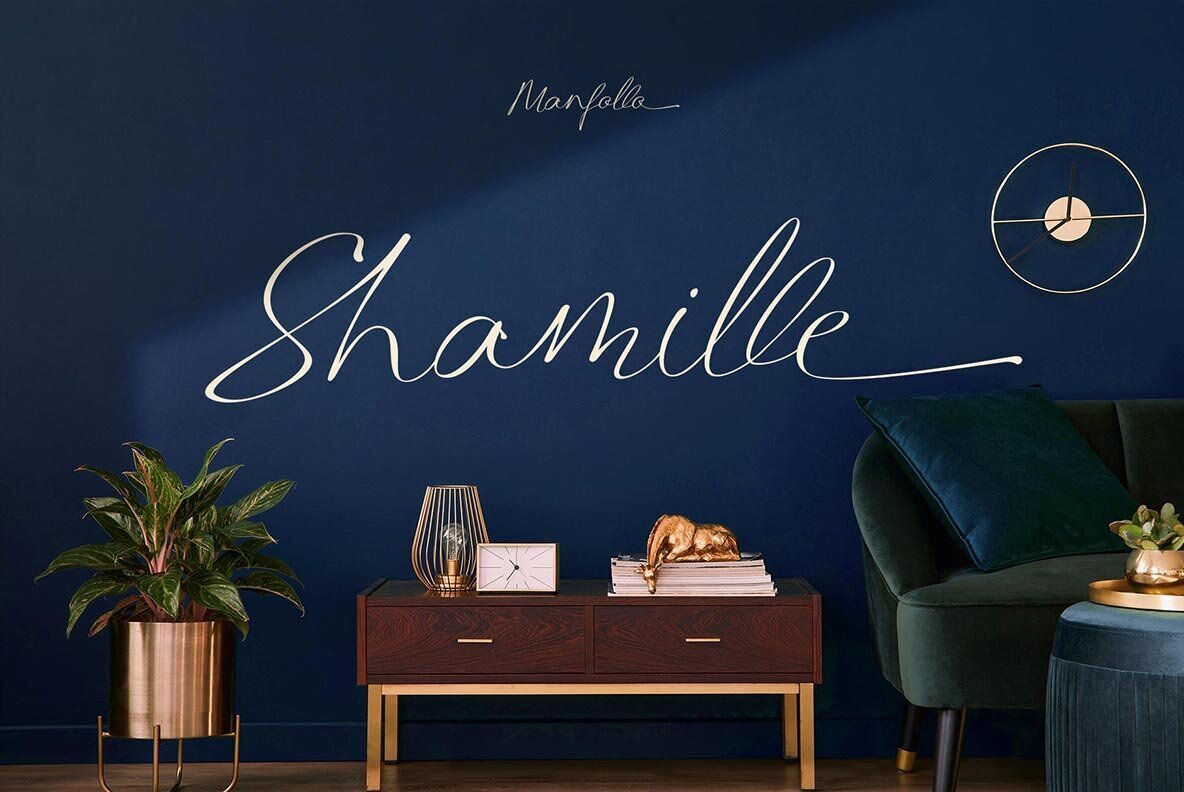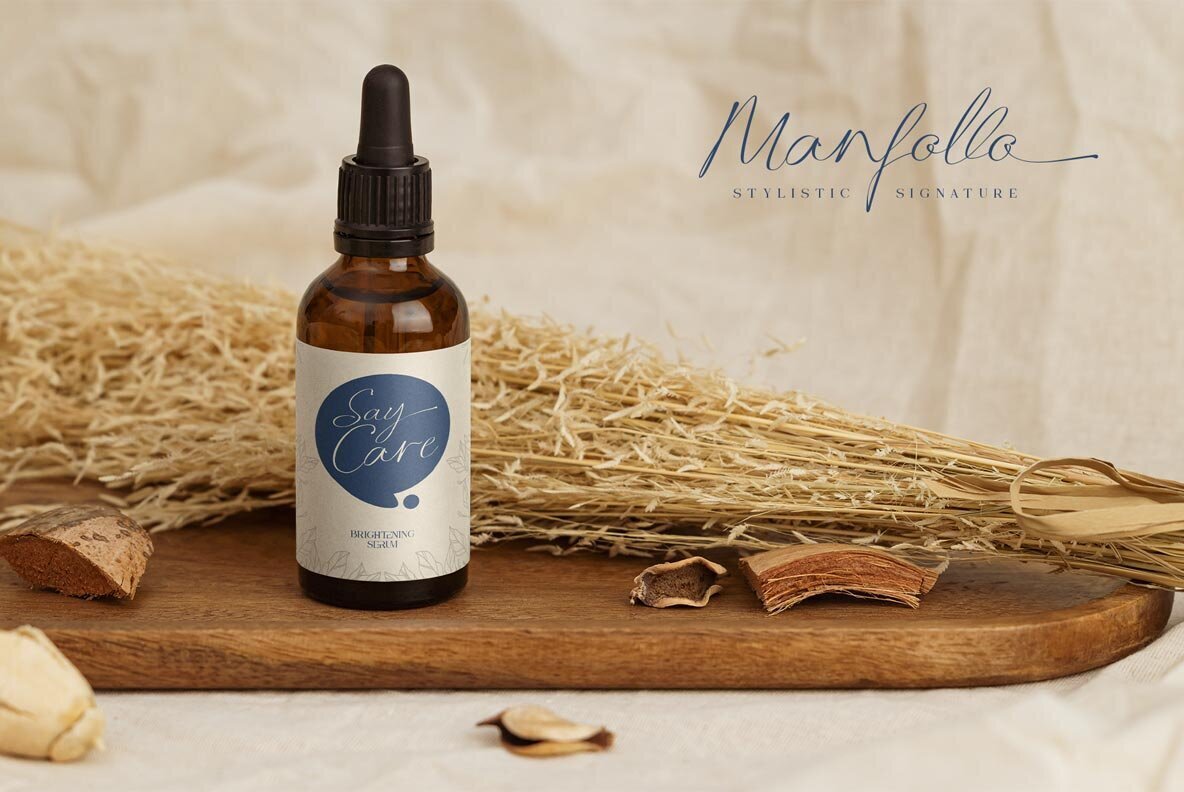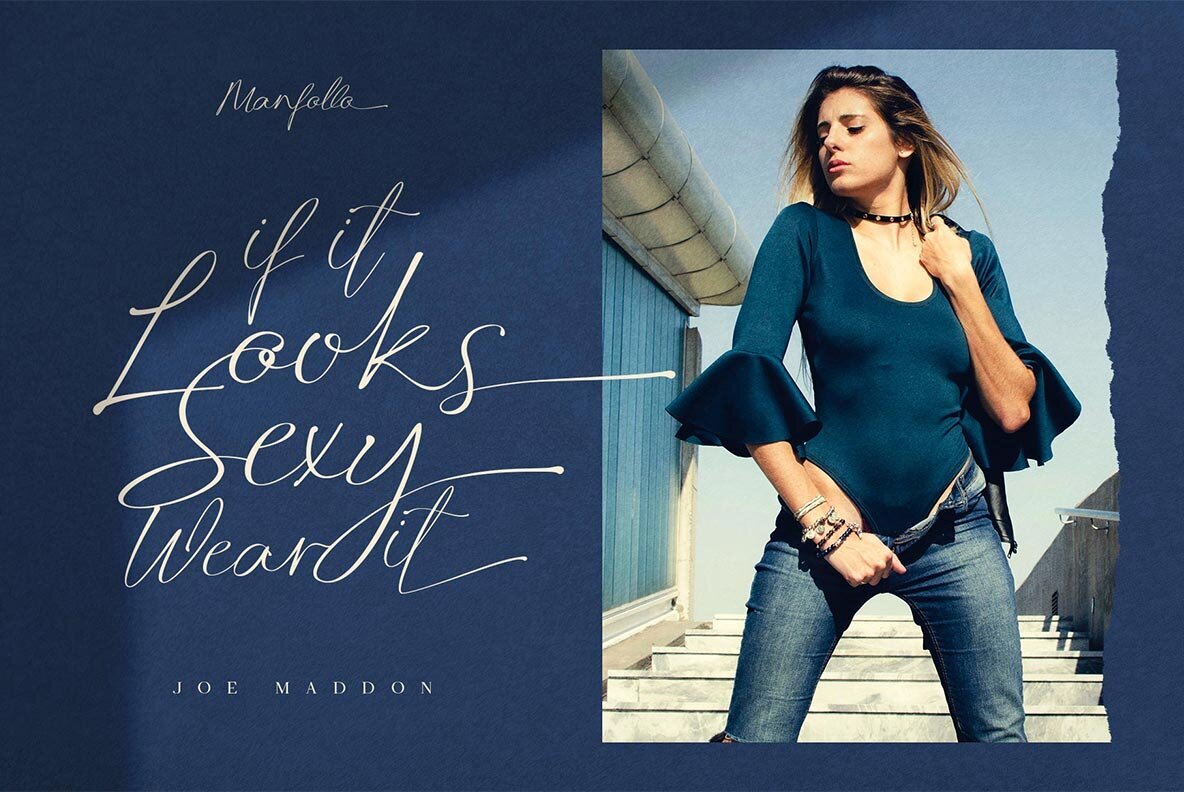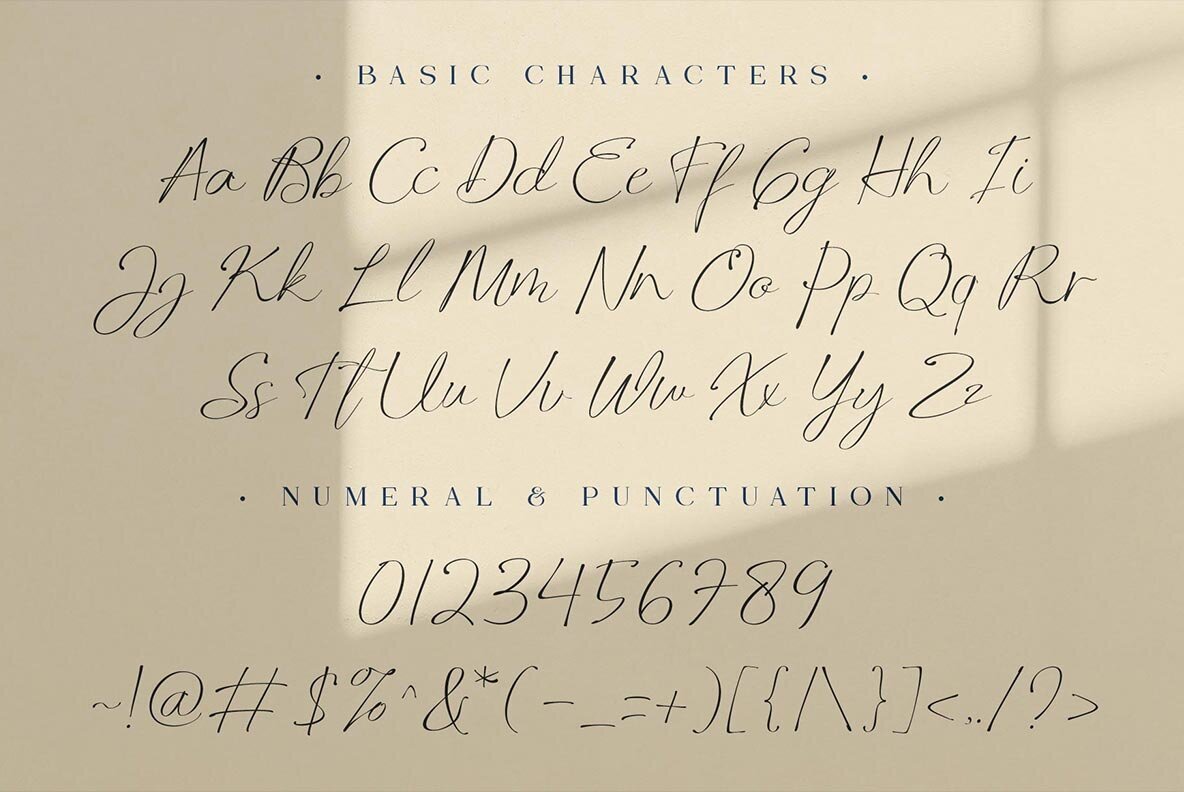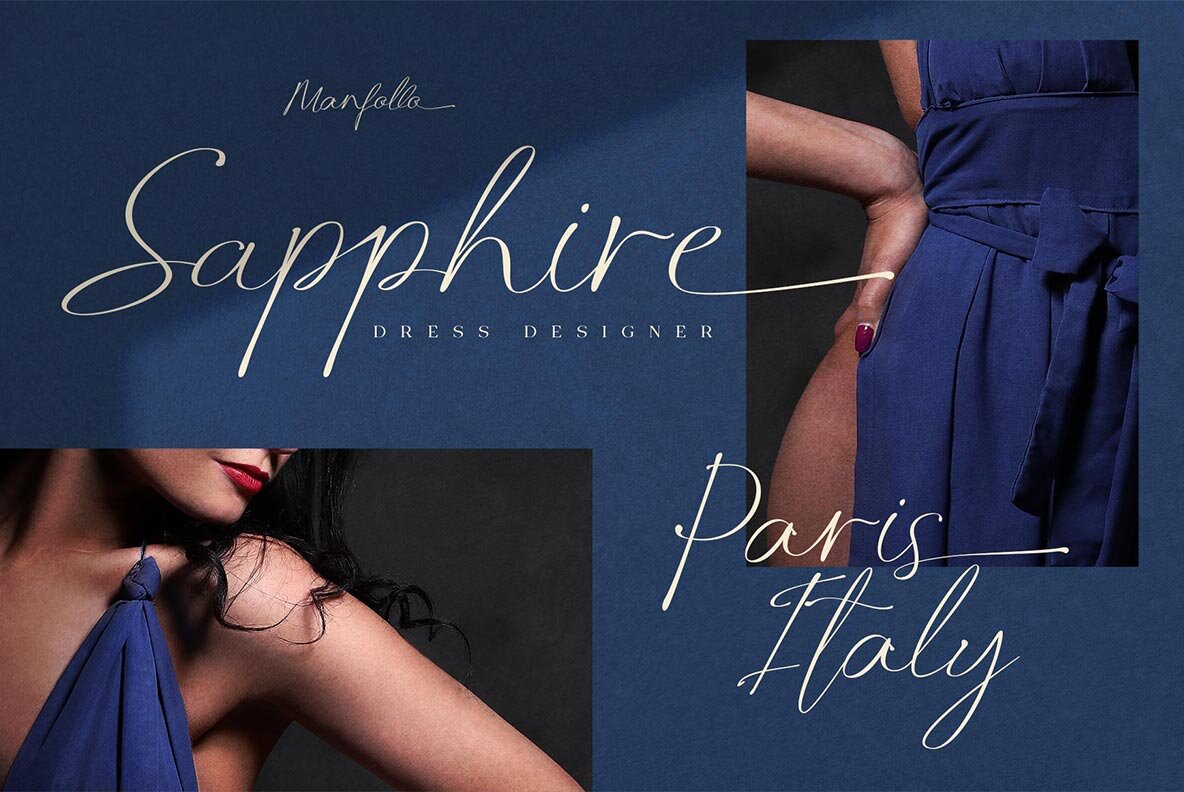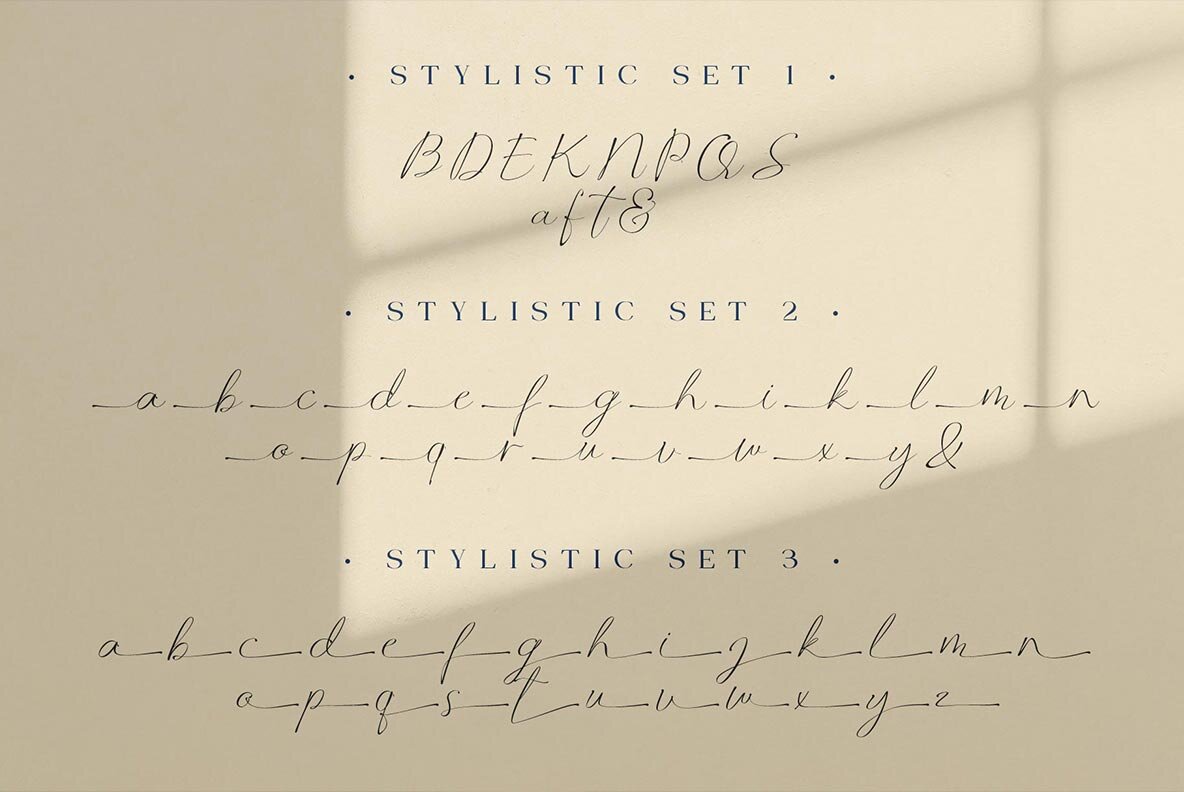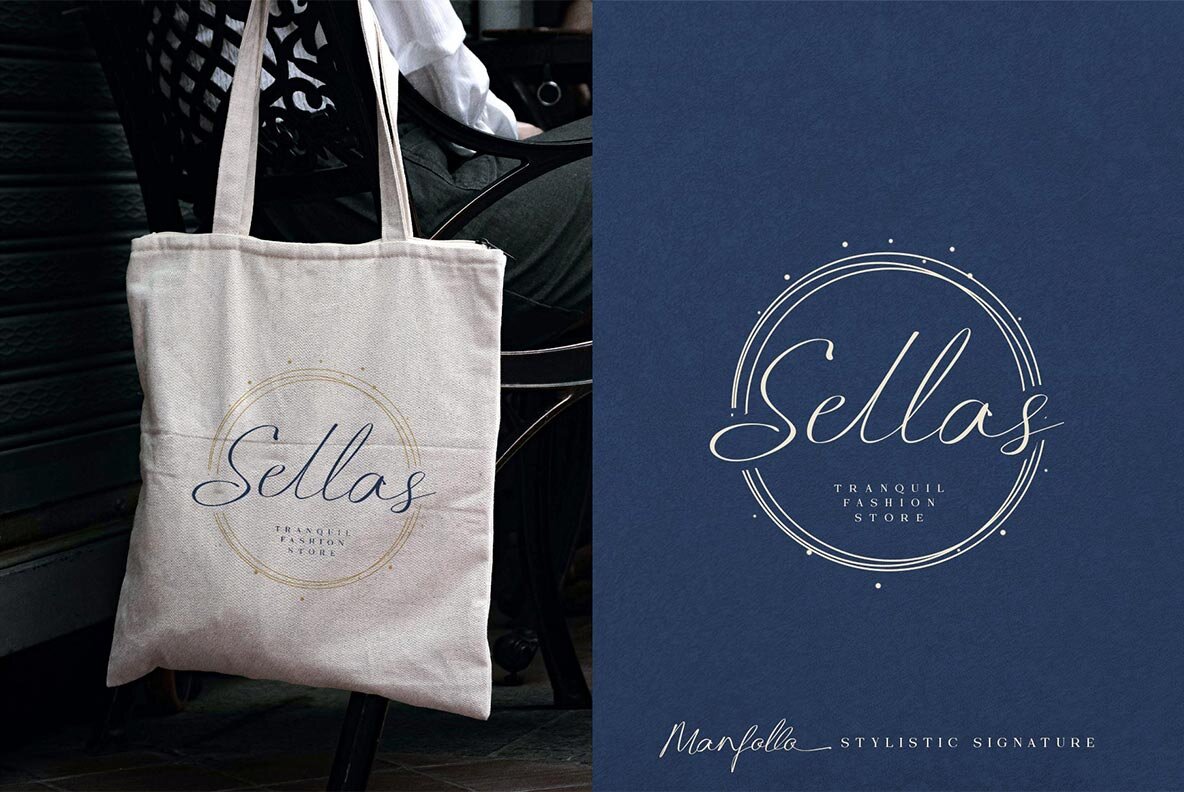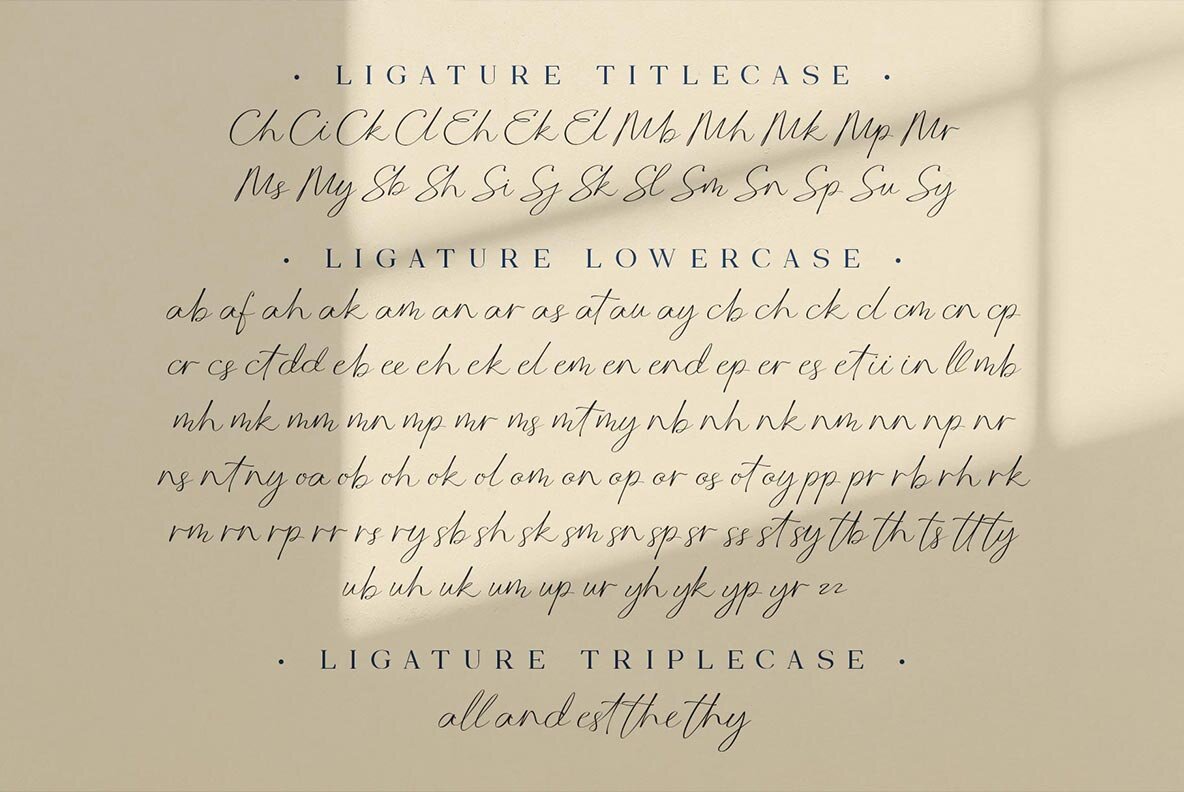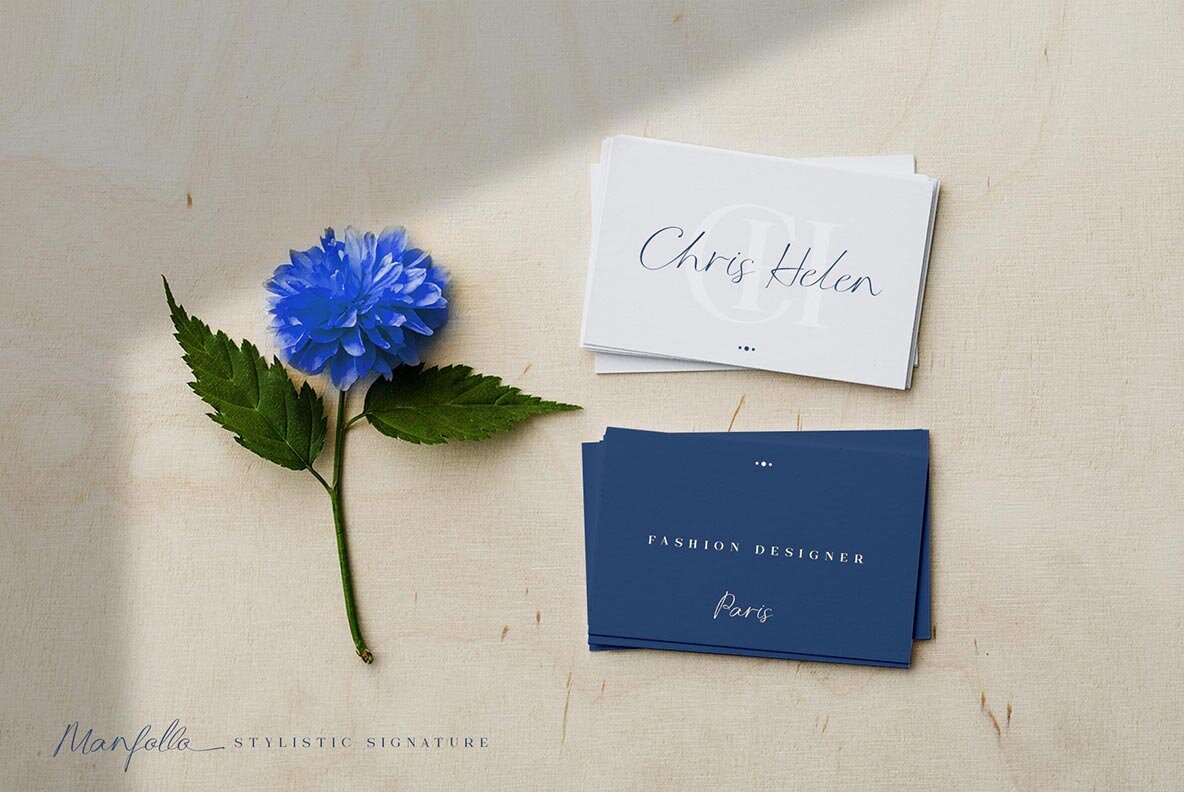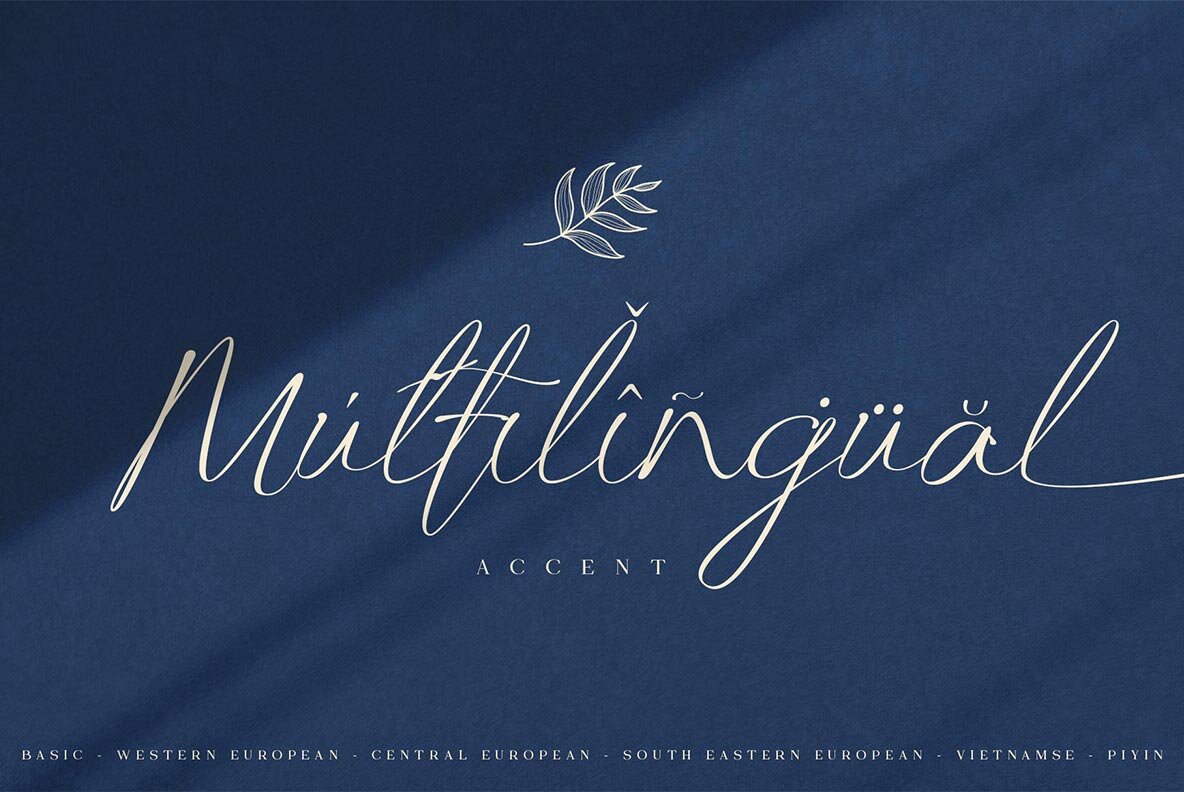
Manfollo Font
Manfollo Regular
The Manfollo Script font is a unique and modern typeface perfect for designing with an ink texture that makes it look real. This very easy-to use script could be used in both design programs like Photoshop or non-. With support on your computer, tablet and smartphone you'll have no problem creating stylish designs using this cool handcraftedNashville style!